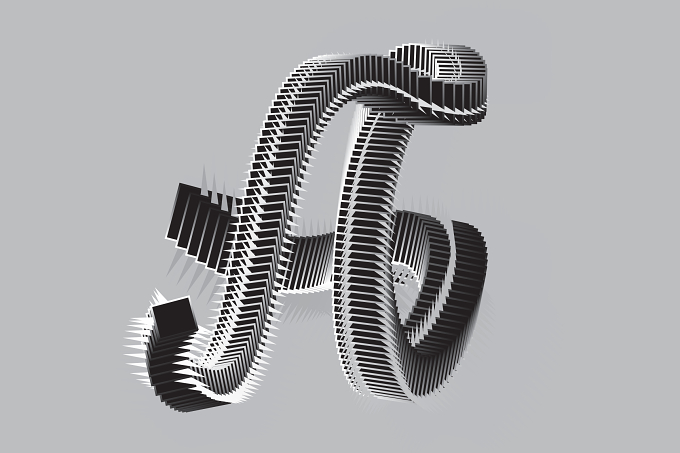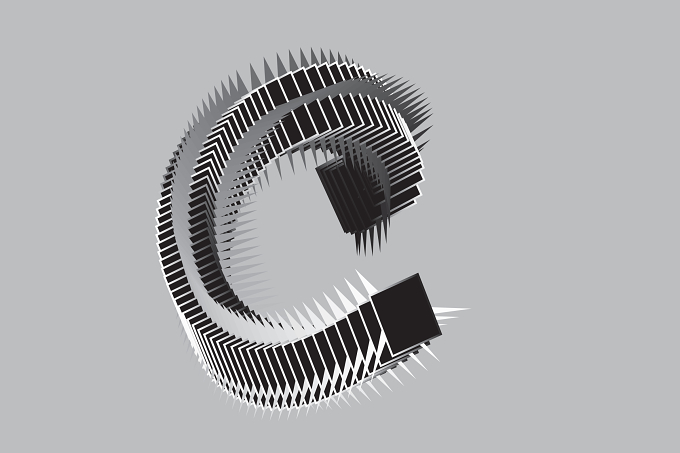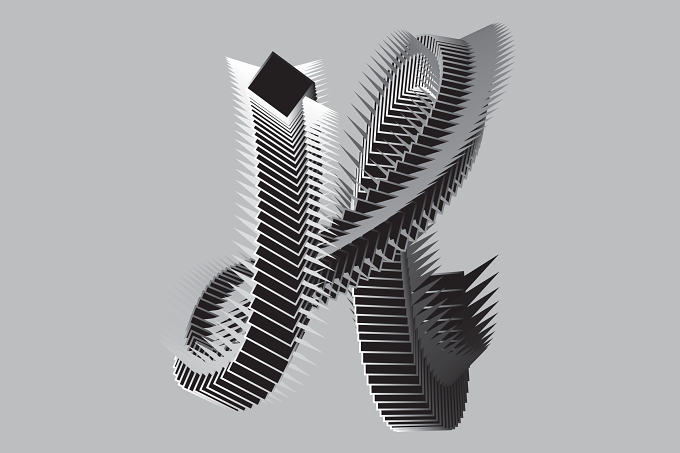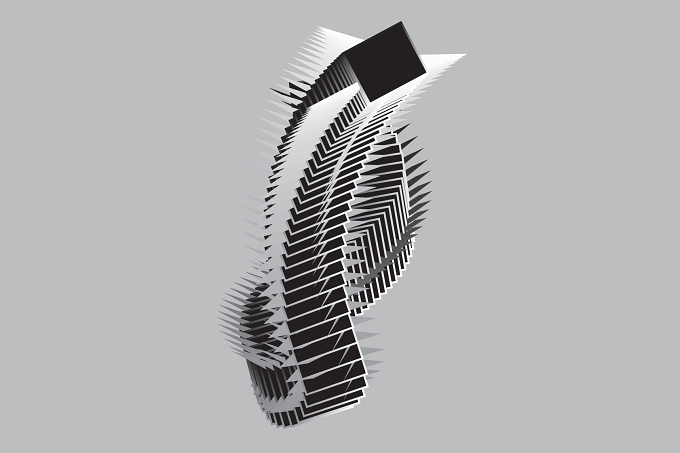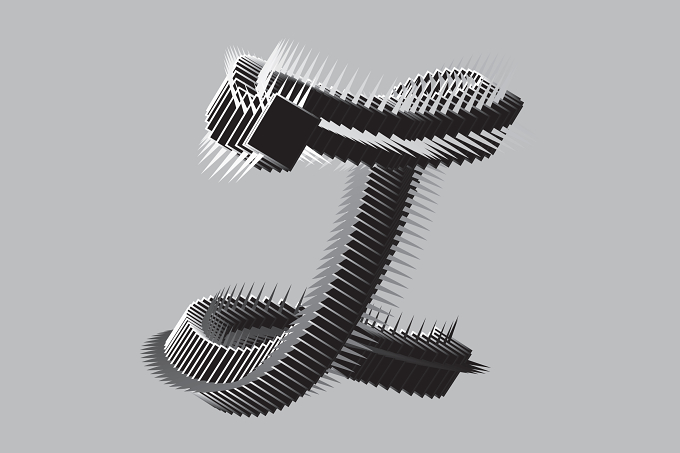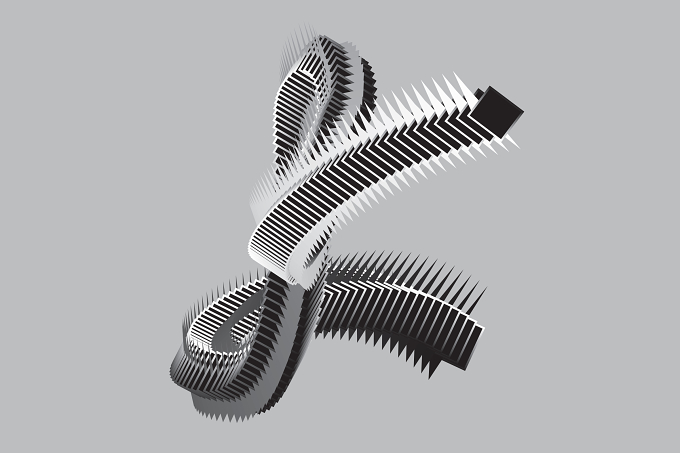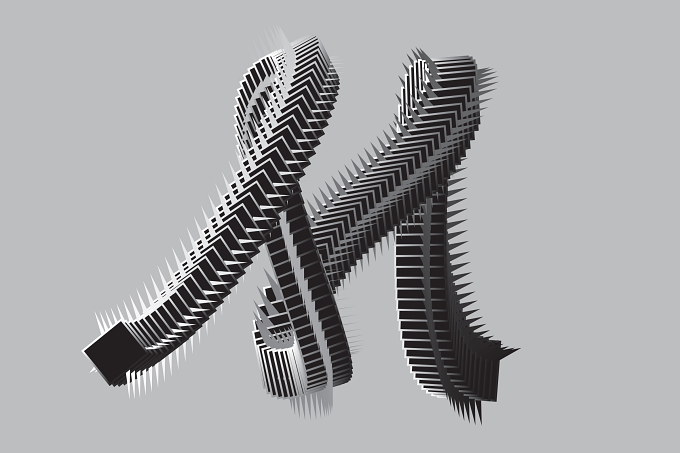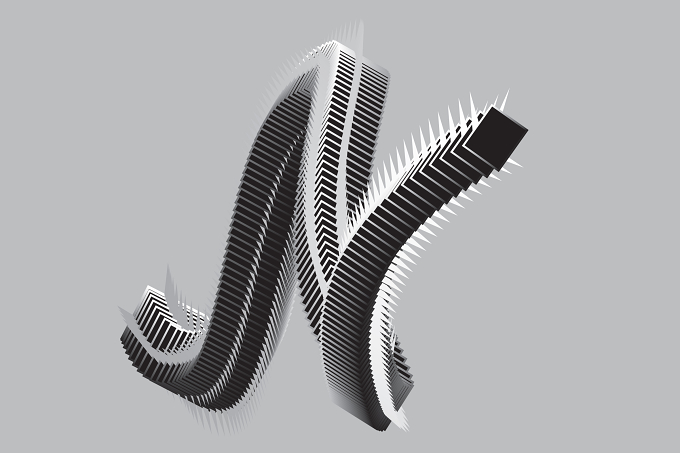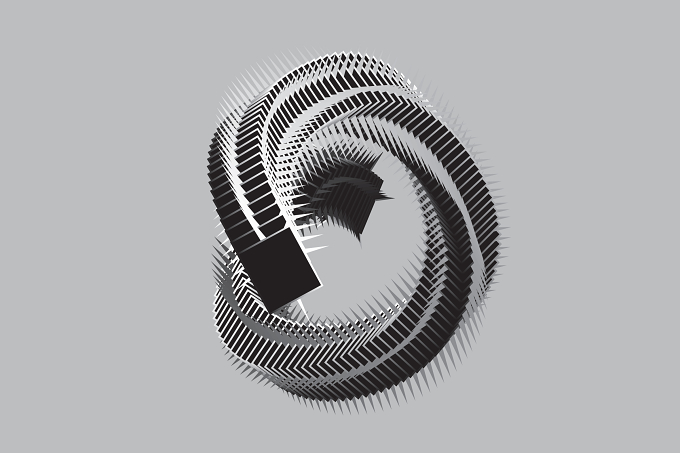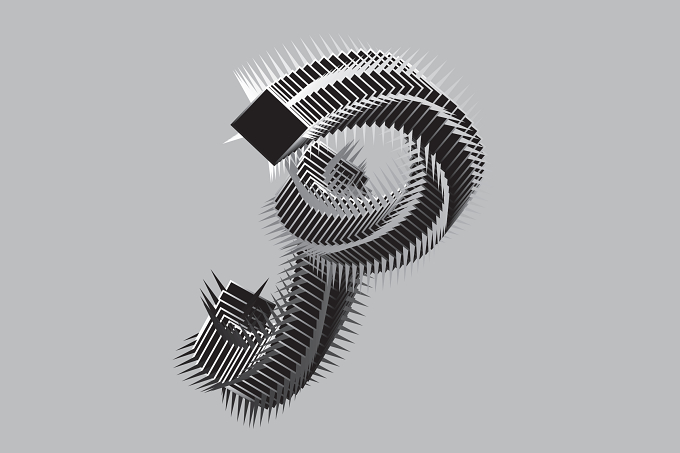
Yingbo Qiao
Verbal bullying occurs every day. Some cases are more extreme than others but nonetheless all forms of bullying act people differently. The most common example of verbal bullying is talking down to people such as saying things like you are not good enough or spreading rumors. There are many forms and severity to verbal bullying, and sometimes the consequence can be fatal.
A dagger hidden in words is a typo/poster design base on A-Z typeface design, using a shape of dagger as the symbol I played around with those letters to make it looks like Chinese ink printing. The curvy composition, Black and white colors unrealistic dimensions in the concept-words can kill.